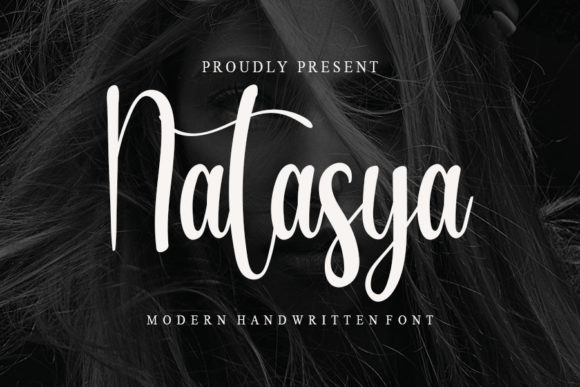
**Introducing Natasya Font: The Ultimate Font For Love**
Immerse yourself in the enchanting world of Natasya, a mesmerizing script font that will ignite your creativity and elevate your designs to breathtaking heights. With its modern vibe and impeccable form, Natasya is the epitome of elegance and sophistication.
Inspired by the timeless art of calligraphy, Natasya effortlessly combines classic charm with contemporary allure. Its carefully crafted strokes, not too thin and not too thick, dance harmoniously across the page, creating a visual feast that captivates the eye.
Whether you're crafting heartfelt love letters, designing enchanting invitations, or simply adding a touch of romance to your digital creations, Natasya is the perfect choice. Its versatility knows no bounds, making it the ideal font for a wide range of projects.
But what truly sets Natasya apart is its emotional resonance. Each letter is infused with a touch of magic, evoking a sense of love, joy, and inspiration. With Natasya as your creative companion, your words will come alive with passion and heartfelt authenticity.
**Key Features:**
* Modern script font with a classic calligraphy touch
* Perfectly balanced strokes, not too thin and not too thick
* Ideal for love letters, invitations, and romantic designs
* Versatile enough for a wide range of projects